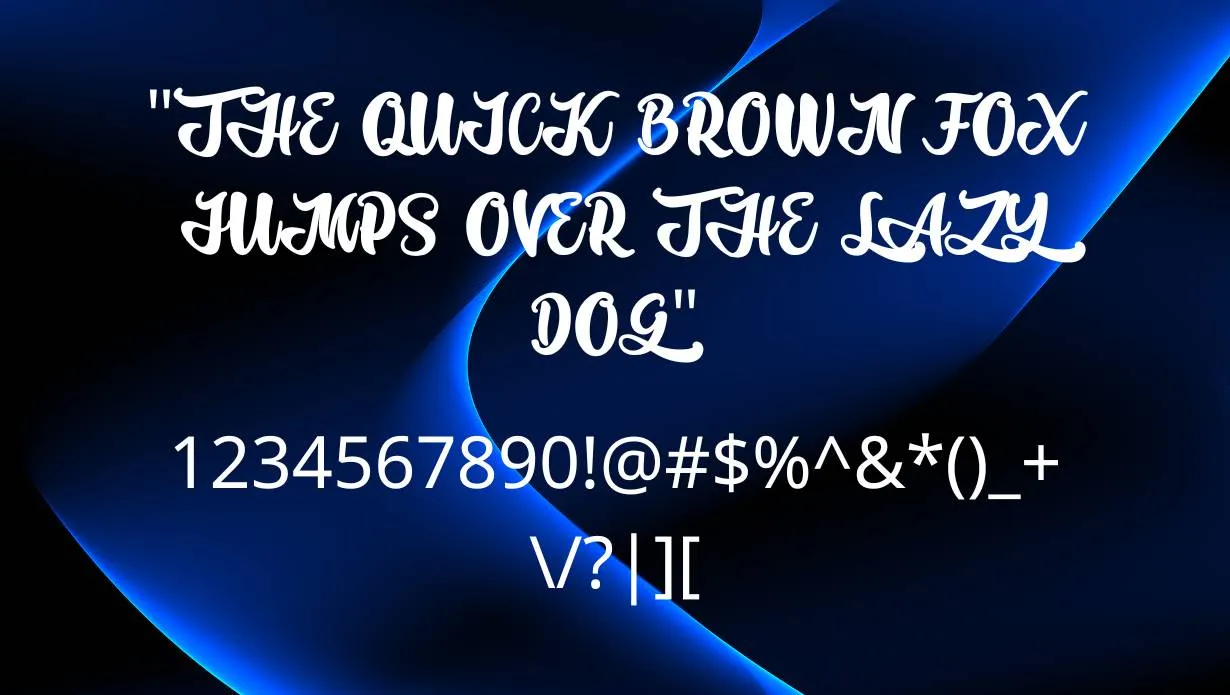
Looking for a font that oozes elegance and grace? Gadimon Script Font is just what you need! Perfect for adding a sophisticated touch to your projects like wedding invites, beauty items, or boutique labels. Embrace the allure of this flowing script typeface and take your designs to the next level. Trust me, you won’t be disappointed!
The font offers an array of characters, including uppercase and lowercase letters, numerals, punctuation, and special characters. Whether you’re creating in Canva or Adobe, Gadimon Script Font adds a sense of sophistication and beauty to your text.
Gadimon Script Font Family
| Name | Gadimon Script Font |
| Designer | Kotak Kuning Studio |